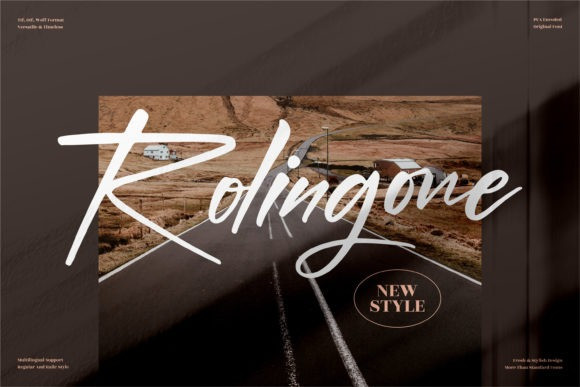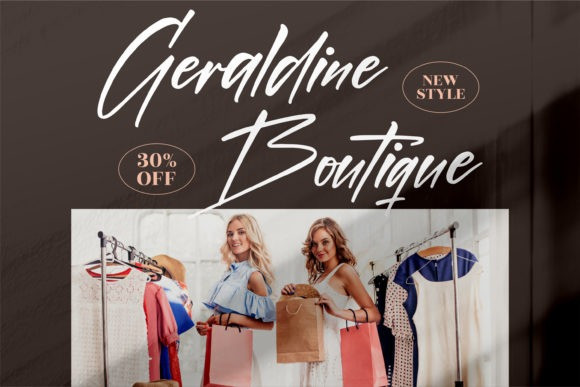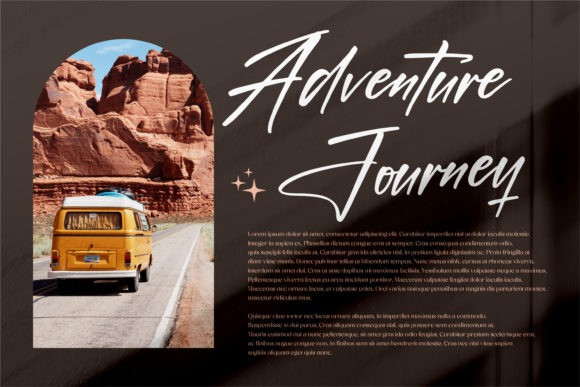
Rolingone Font
Rolingone is a lovely and timeless handwritten font. It is the best choice for creating eye catching logos, branding and quotes. Every letter has a unique and beautiful touch, which will make your design come alive!